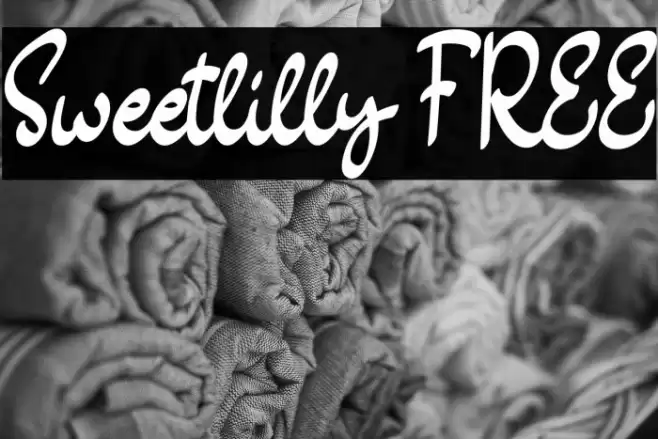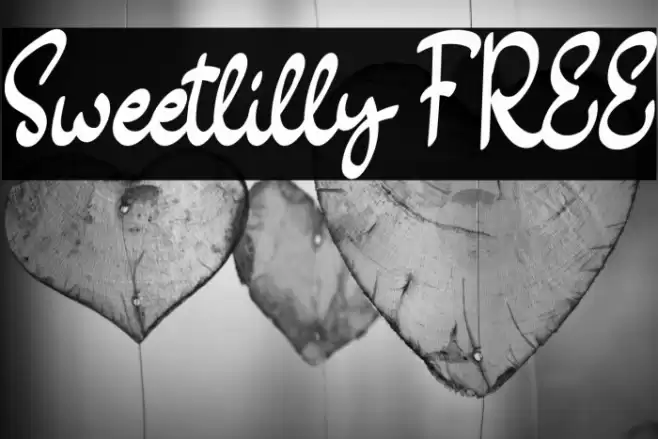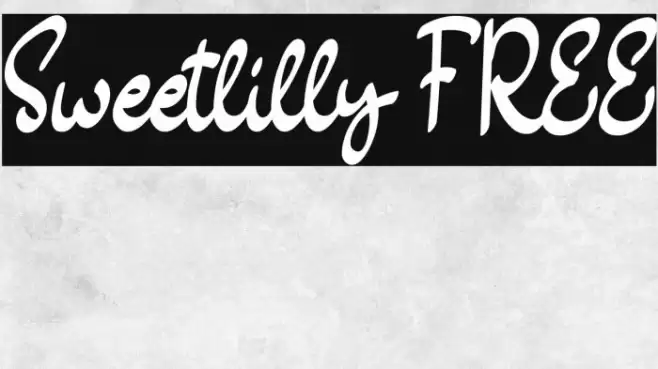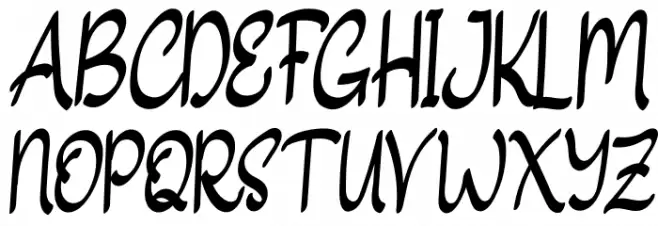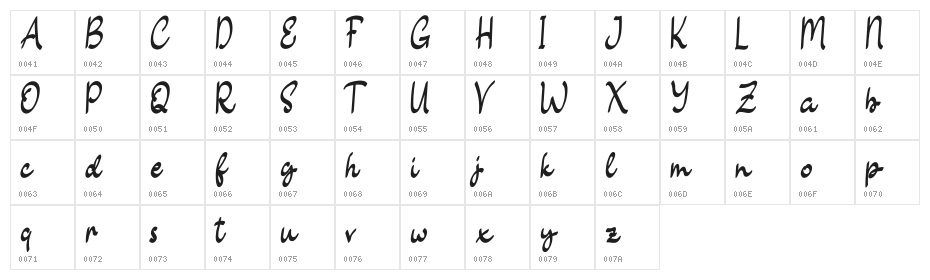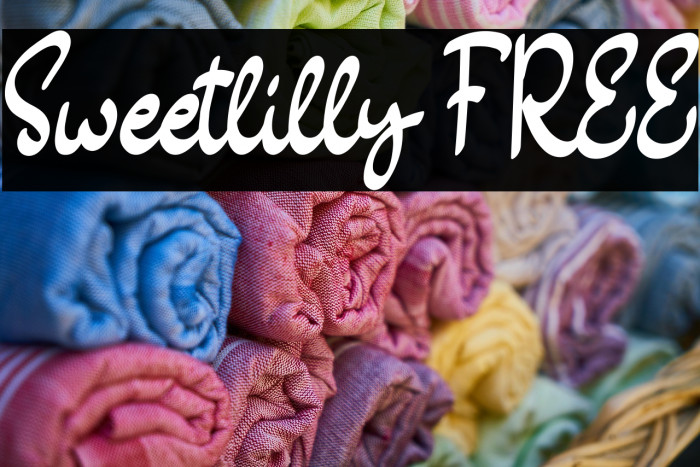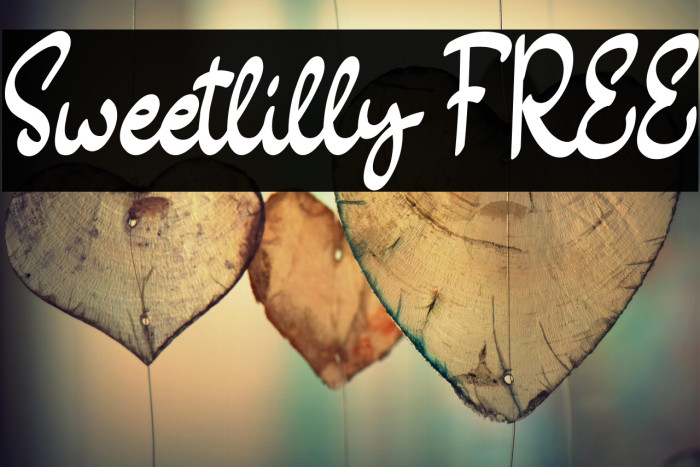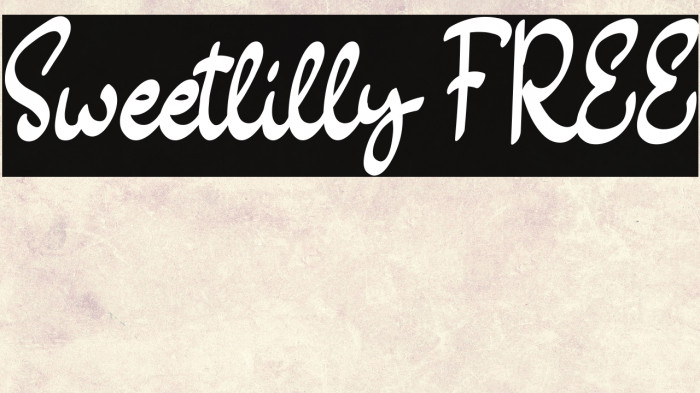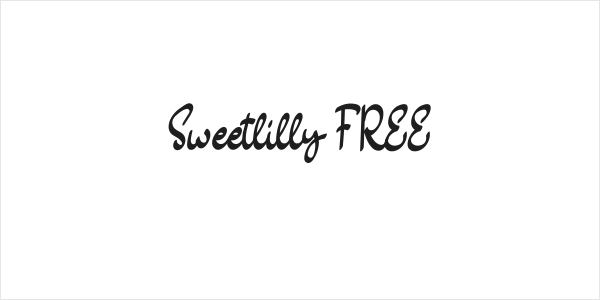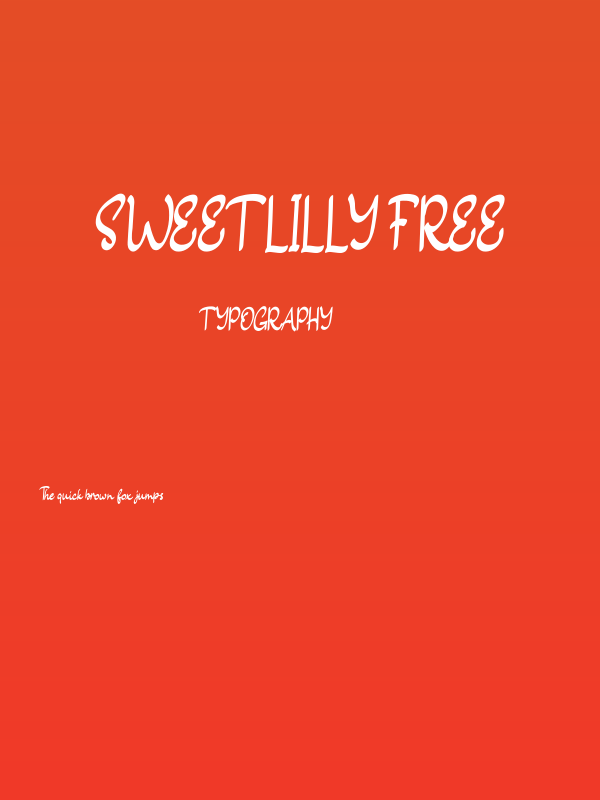
Sweetlilly FREE Font
Sweetlilly FREE Description
This font features a lively and dynamic script style with a handwritten appearance. The letters are connected, giving it a fluid and continuous look, reminiscent of casual handwriting. The strokes are bold and slightly irregular, adding a playful and informal touch. The uppercase letters are tall and slightly narrow, while the lowercase letters are more rounded and compact. This font exudes a sense of creativity and spontaneity, making it ideal for projects that require a personal and approachable feel.
A bold, handwritten script font with a lively and informal style from Regular fonts.
- Proposed Projects: Ideal for greeting cards, invitations, personal branding, and creative projects that require a personal touch.
- Overall Style: Casual and Playful
- Use Case: Logos, Invitations, Greeting Cards